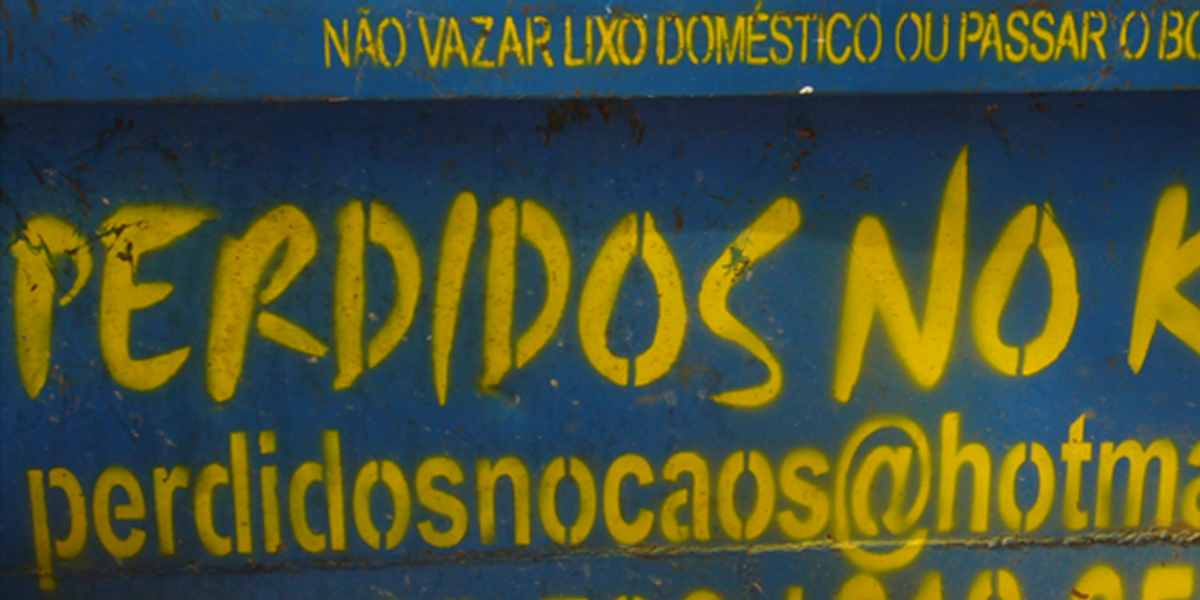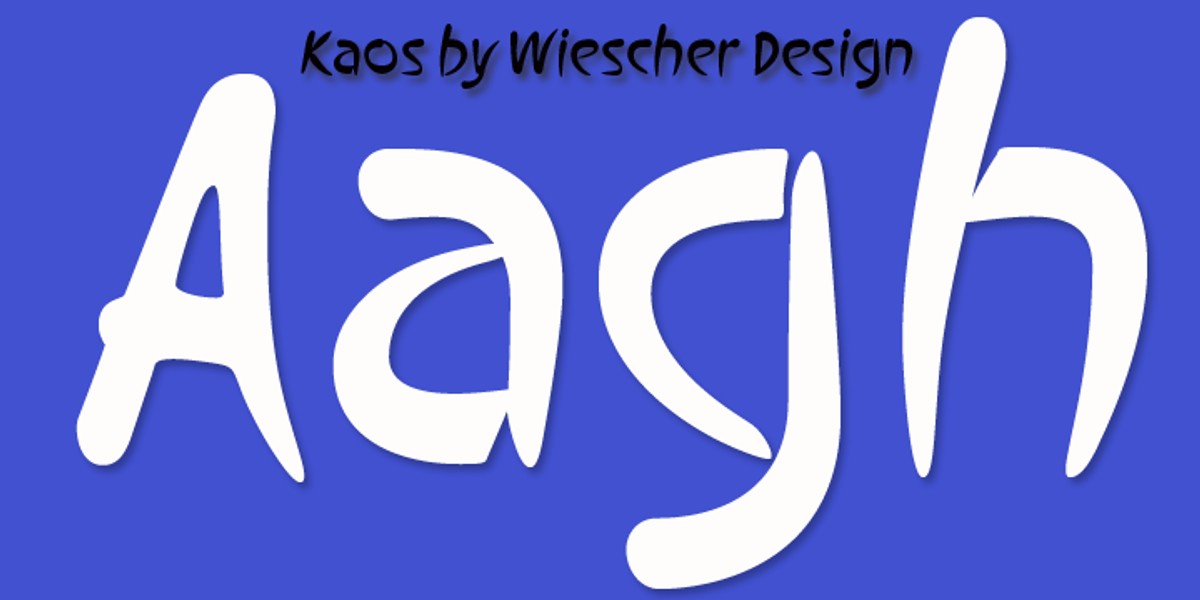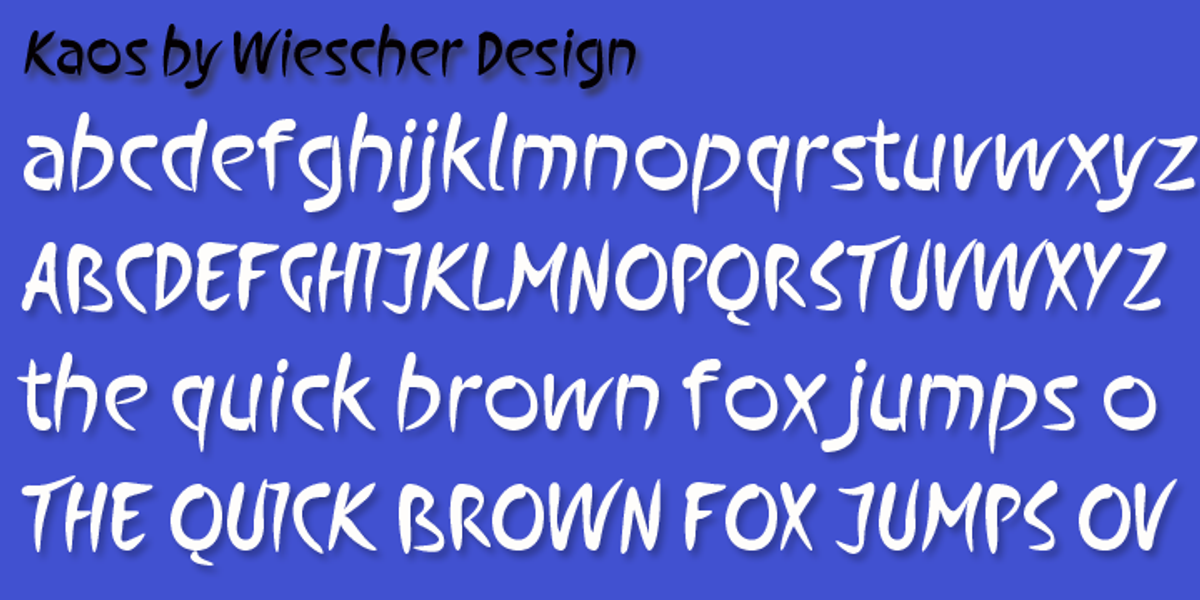
Kaos
Inspired by the graffiti-style lettering on a garbage bin in Lisbon, 'Perdidos no Kaos' is a grunge hand script font designed by Gert Wiescher. It features brush-like strokes and a distinctive handwritten feel, making it suitable for applications like posters, album art, and streetwear design.